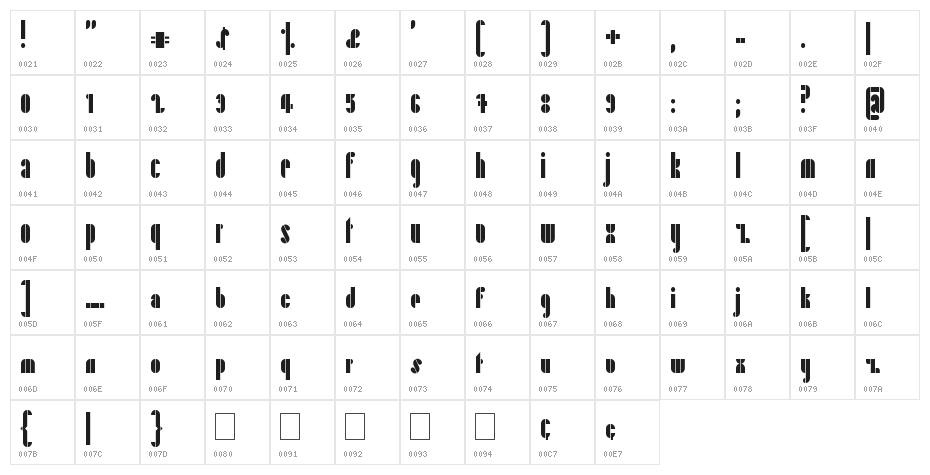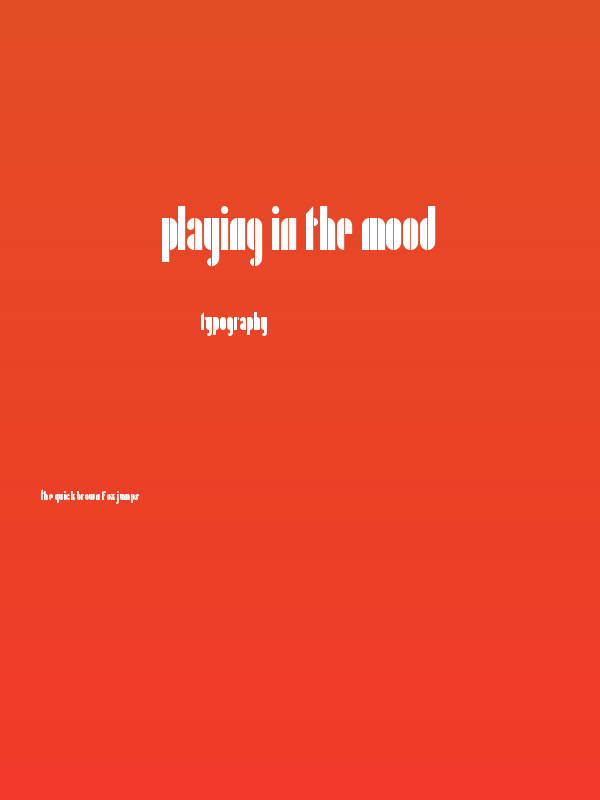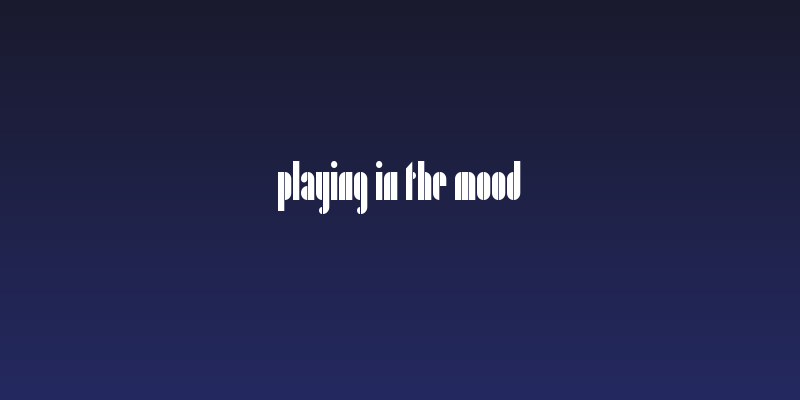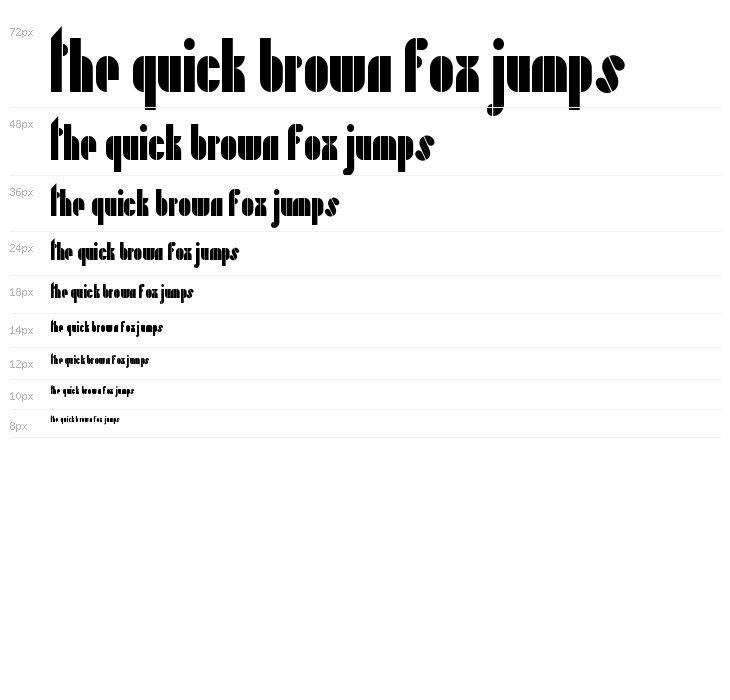
Playing in the Mood Font
Playing in the Mood Description
This font features a bold and striking design with a strong geometric influence. The characters are constructed with thick, uniform strokes that create a sense of solidity and presence. The vertical lines are prominent, while the curves are minimal, giving it a modern and industrial feel. The uppercase and lowercase letters maintain a consistent height, contributing to a cohesive look. The numbers and special characters follow the same design principles, ensuring uniformity across all glyphs. This font's unique style makes it stand out, ideal for projects that require a bold statement.
| Proposed Projects | Ideal for branding, posters, headlines, and any design that requires a strong visual impact. |